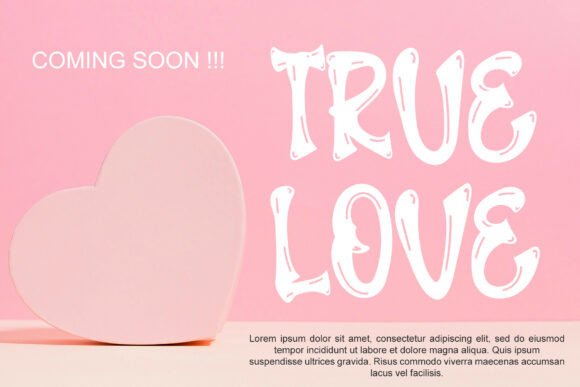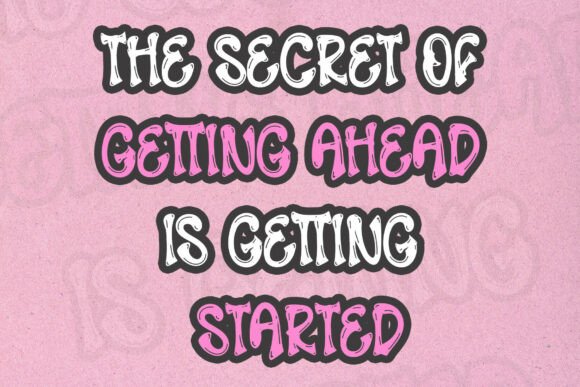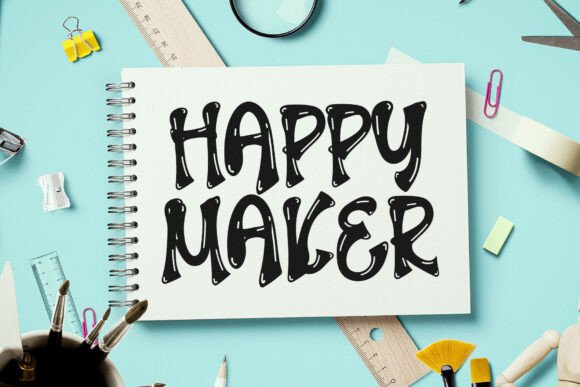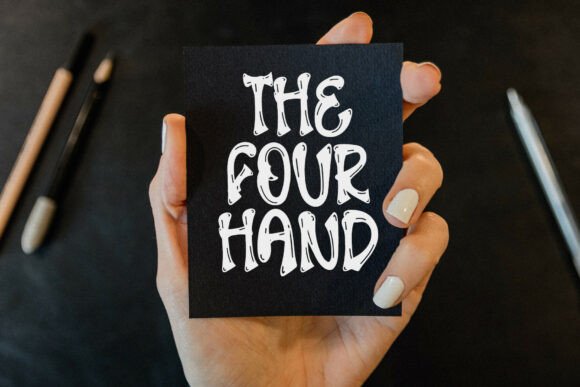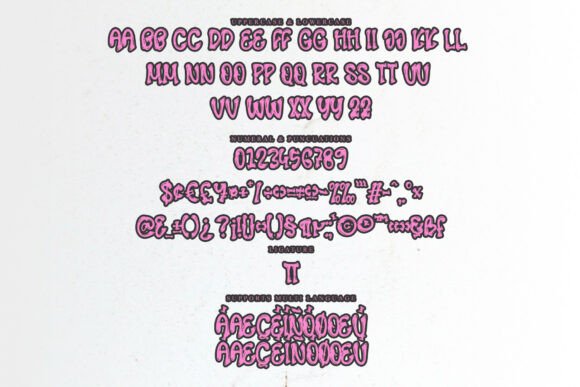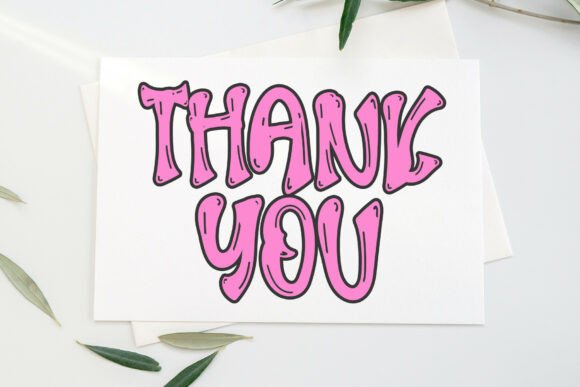
Bumble Thick Font: Elevate Your Designs with Elegance and Personality
In the world of typography, fonts play a crucial role in conveying the tone and aesthetic of a design. For designers and crafters looking to add a touch of sophistication and personality to their projects, Bumble Thick Font is an excellent choice. This beautifully crafted display handwriting font seamlessly blends elegance with a modern, artistic touch, making it perfect for a wide range of design applications.
The Characteristics of Bumble Thick Font
Bumble Thick Font is distinguished by its flowing strokes and well-balanced curves, which create a sophisticated yet approachable feel. The font’s design is characterized by:
- Flowing Strokes: The font features smooth, flowing strokes that give it a dynamic and artistic feel.
- Well-Balanced Curves: The carefully crafted curves ensure that the font remains elegant and refined, making it suitable for high-end designs.
- Modern, Artistic Touch: Bumble Thick Font incorporates a modern, artistic element that sets it apart from more traditional fonts.
Why Choose Bumble Thick Font?
For designers and crafters, selecting the right font can be a daunting task. Here are some reasons why Bumble Thick Font stands out:
- Elegance and Sophistication: The font’s elegant design makes it perfect for projects that require a touch of sophistication, such as luxury branding, high-end packaging, and upscale editorial content.
- Personality and Approachability: Despite its elegance, Bumble Thick Font remains approachable and friendly, making it suitable for designs that require a more personal touch, such as invitations, greeting cards, and social media graphics.
- Versatility: The font’s versatility ensures that it can be used across various design applications, from digital projects to print materials.
Design Applications for Bumble Thick Font
Bumble Thick Font is suitable for a wide range of design applications, including:
- Branding and Logo Design: The font’s elegant and modern design makes it perfect for creating sophisticated brand identities and logos.
- Packaging Design: Bumble Thick Font is ideal for high-end packaging designs that require a touch of luxury and sophistication.
- Editorial Design: The font’s refined design makes it suitable for upscale editorial content, such as fashion magazines and luxury lifestyle publications.
- Digital Design: Bumble Thick Font can be used in digital projects, such as social media graphics, website headers, and mobile app designs.
Tips for Using Bumble Thick Font
To get the most out of Bumble Thick Font, consider the following tips:
- Pair with Neutral Backgrounds: Pair the font with neutral backgrounds to allow it to take center stage and make a statement.
- Experiment with Colors: Experiment with different colors to find the perfect combination that complements the font’s elegant design.
- Use in Combination with Other Fonts: Consider using Bumble Thick Font in combination with other fonts to create visual interest and add depth to your designs.
Bumble Thick Font is a beautifully crafted display handwriting font that offers the perfect blend of elegance and personality. Its flowing strokes, well-balanced curves, and modern, artistic touch make it an excellent choice for designers and crafters looking to elevate their designs. With its versatility and wide range of design applications, Bumble Thick Font is sure to become a staple in any designer’s font library.